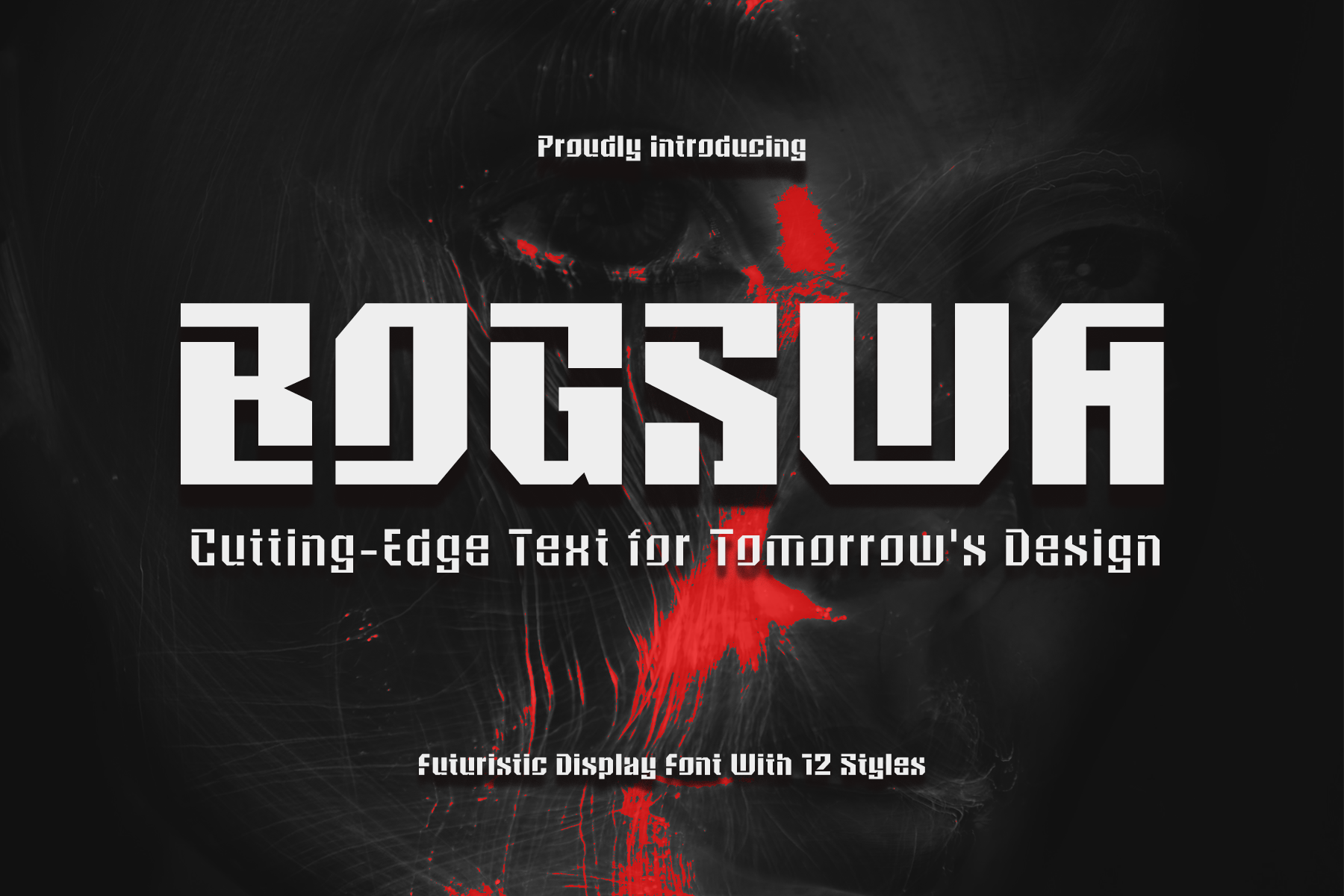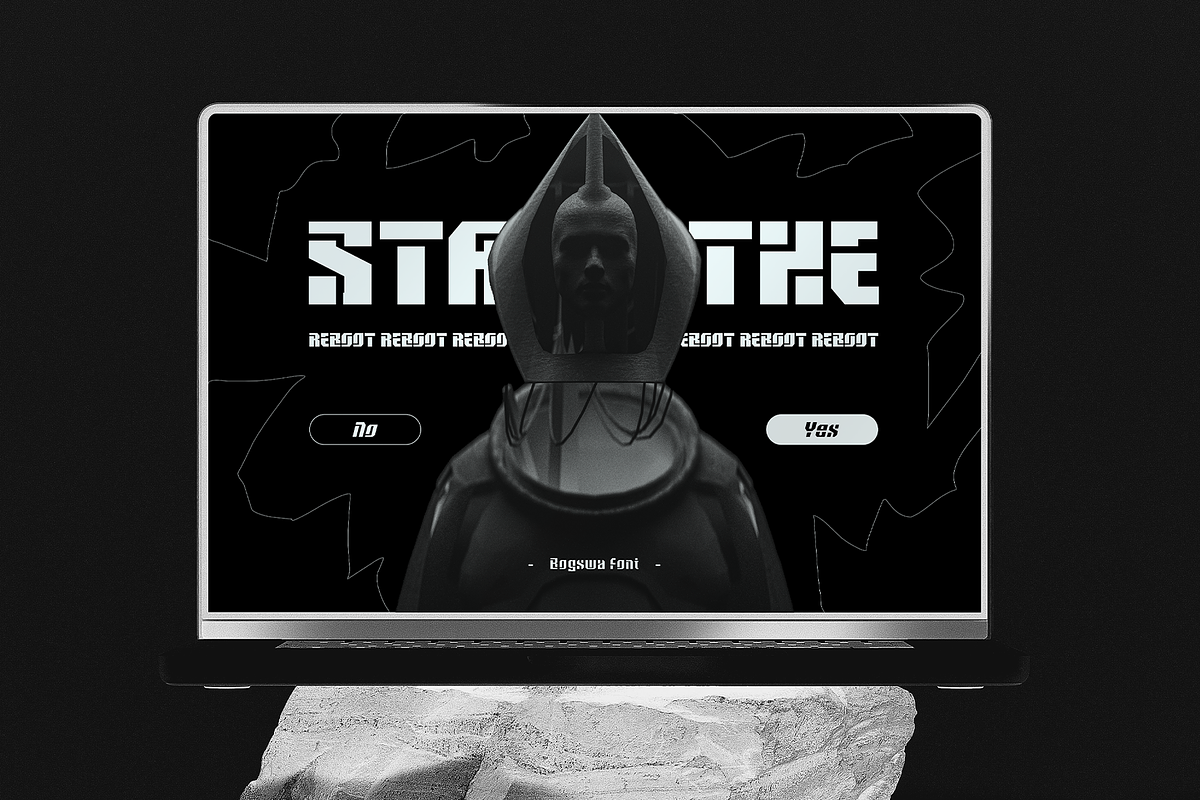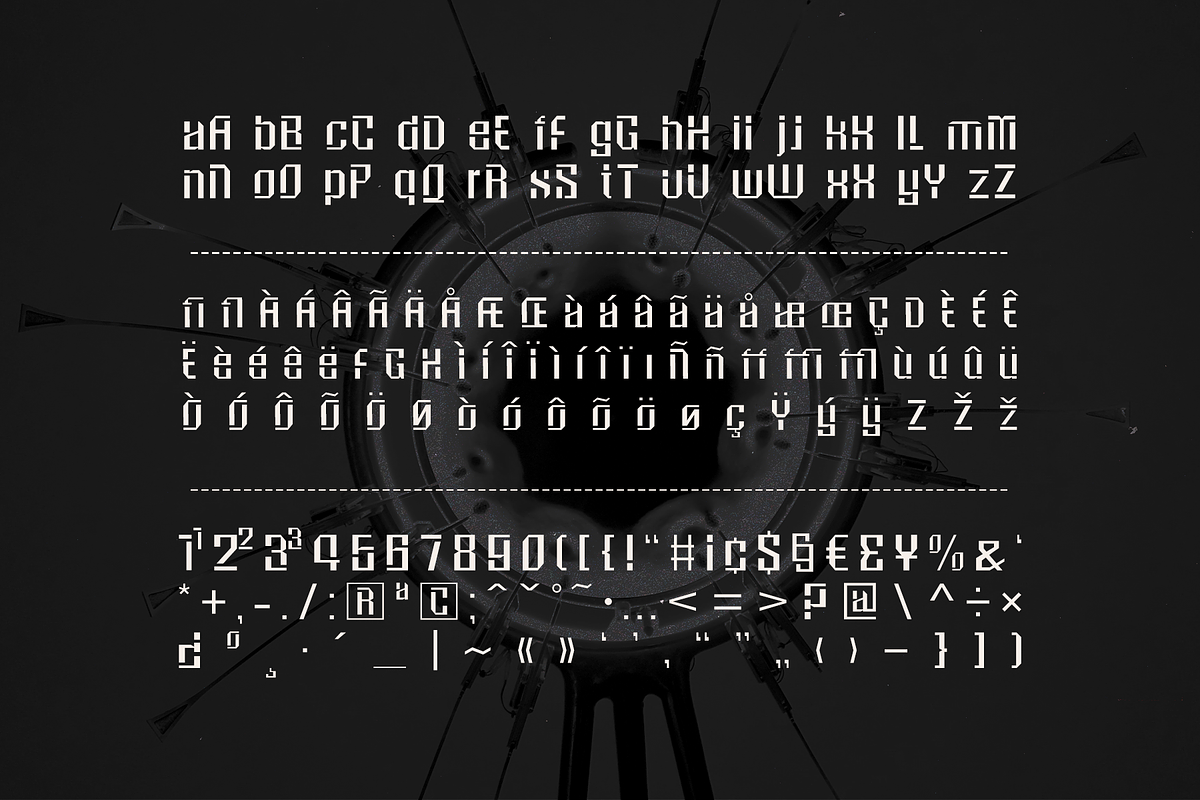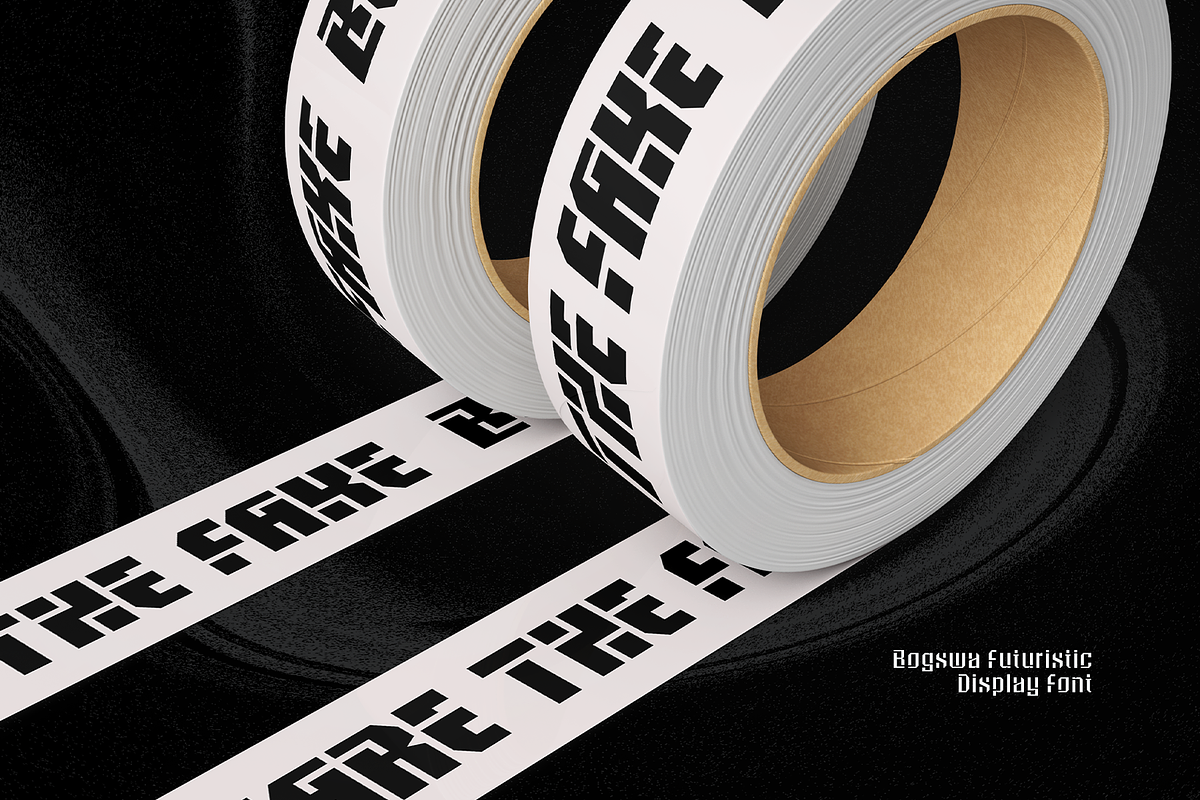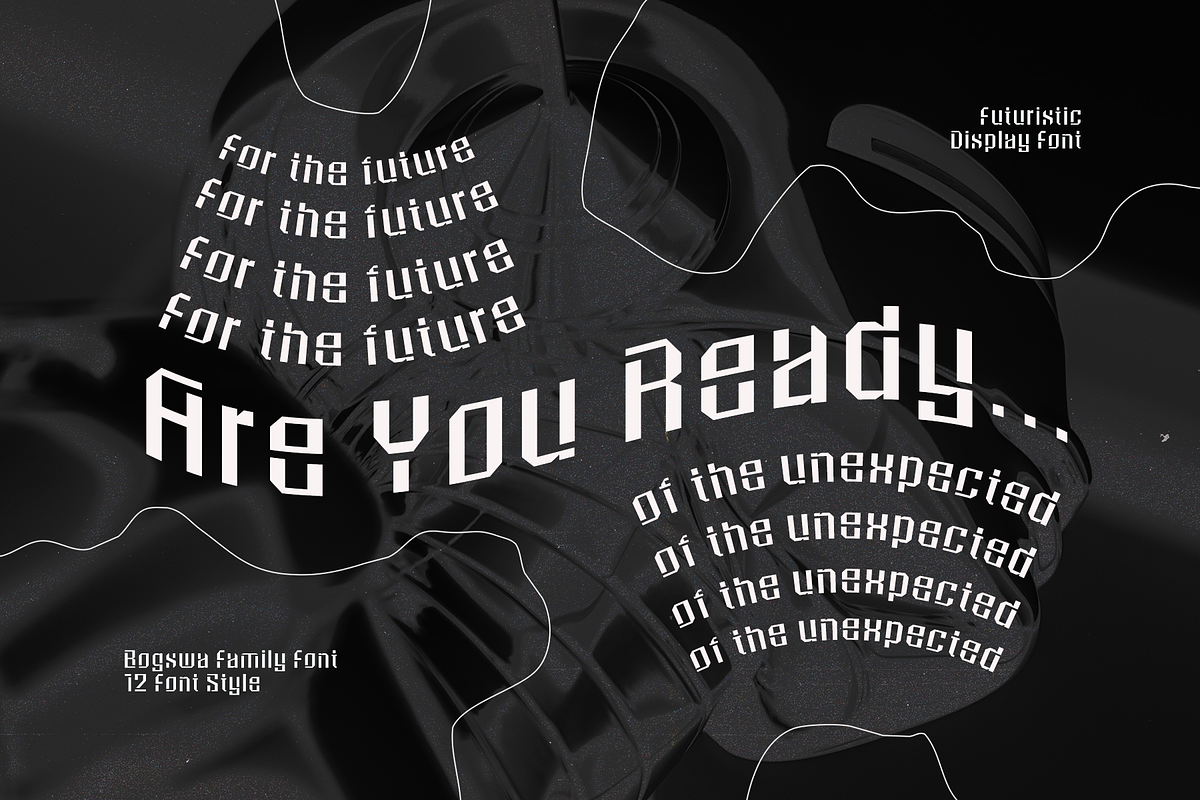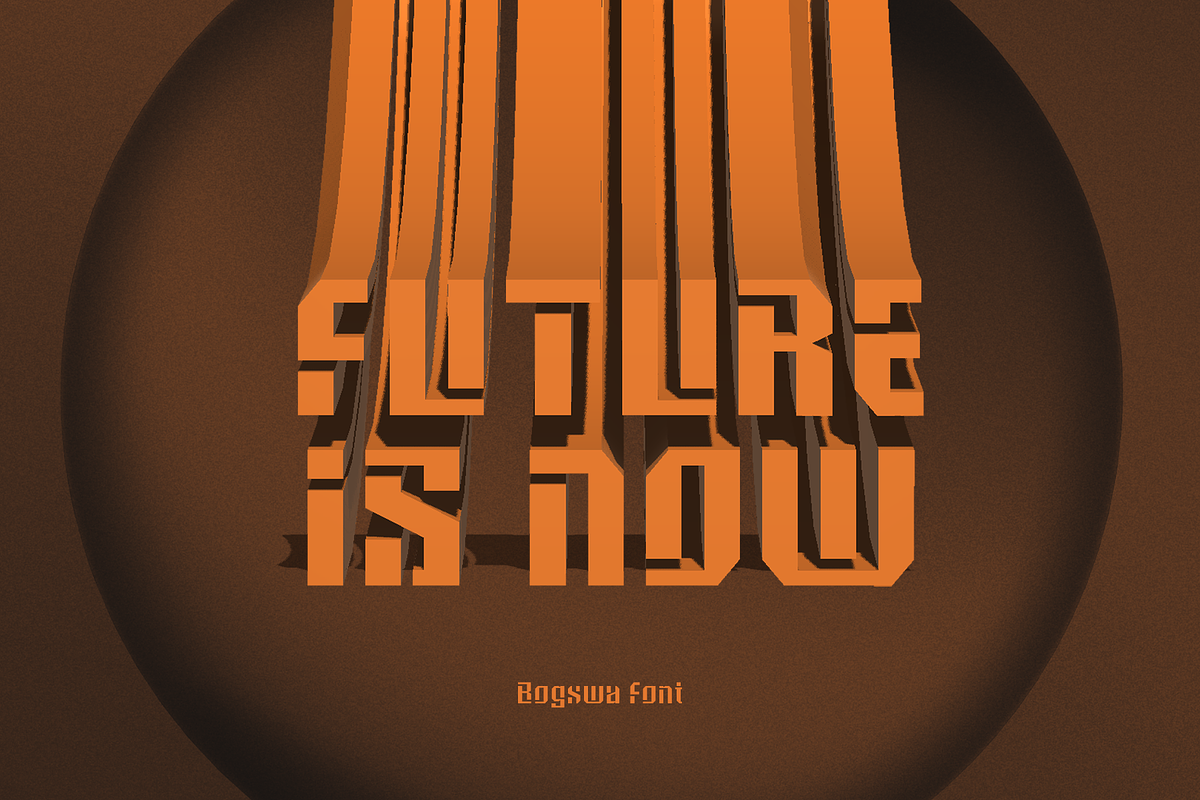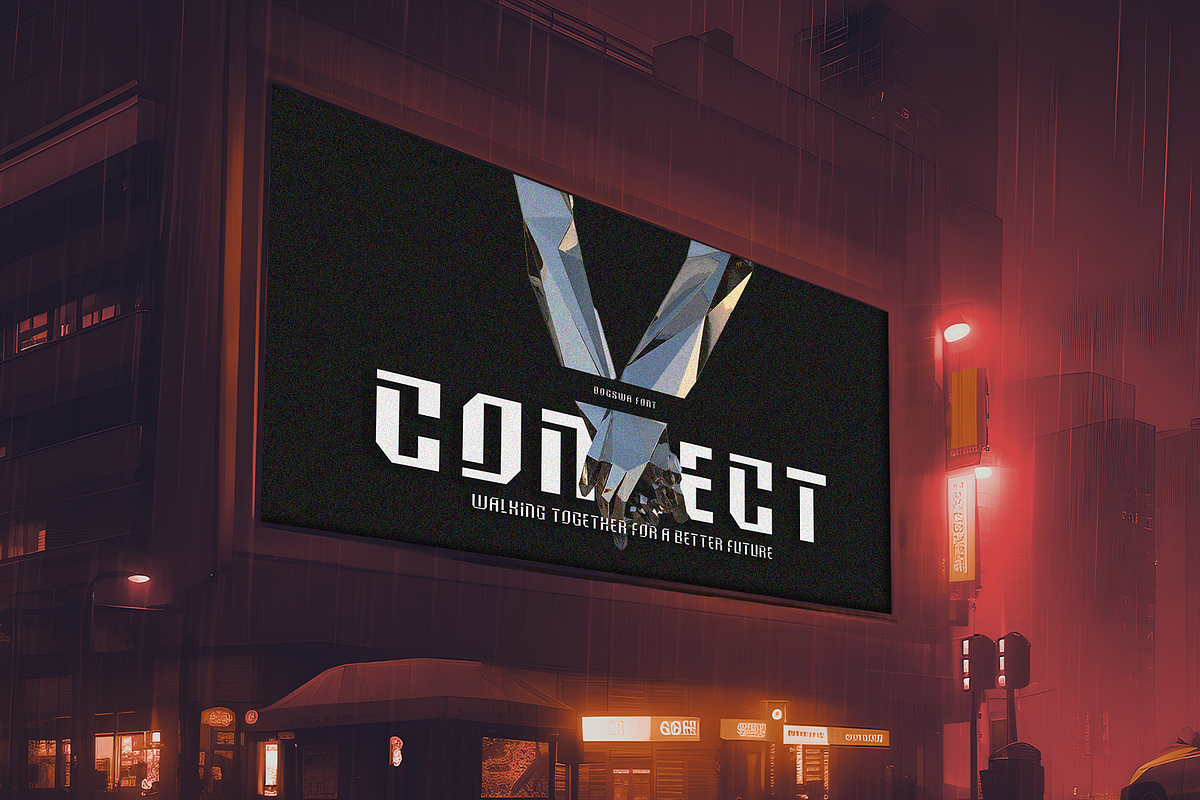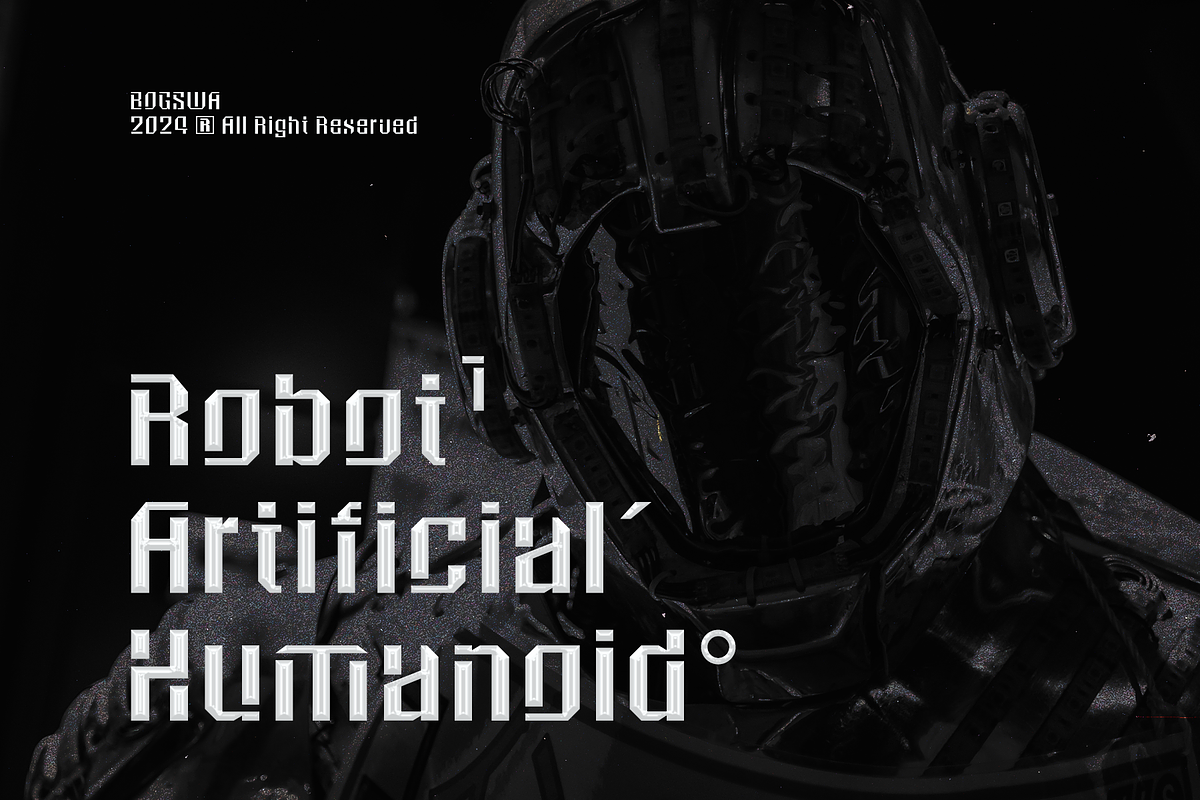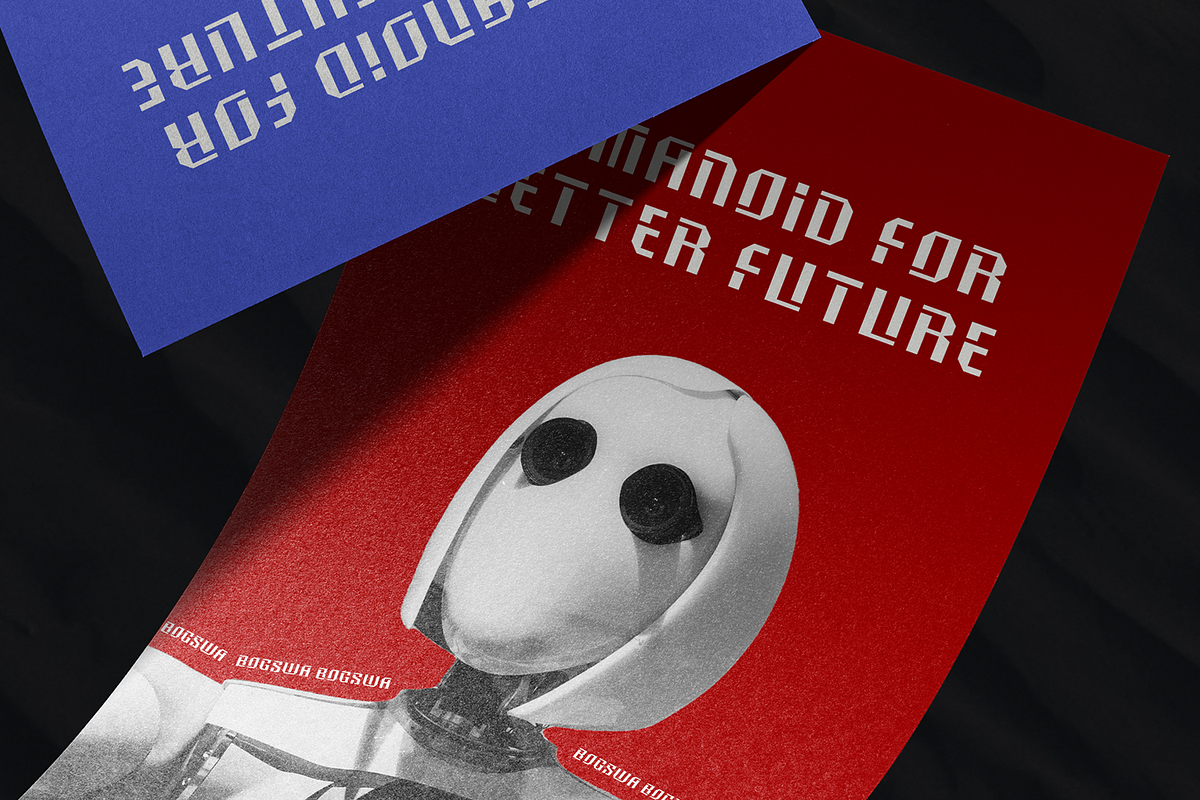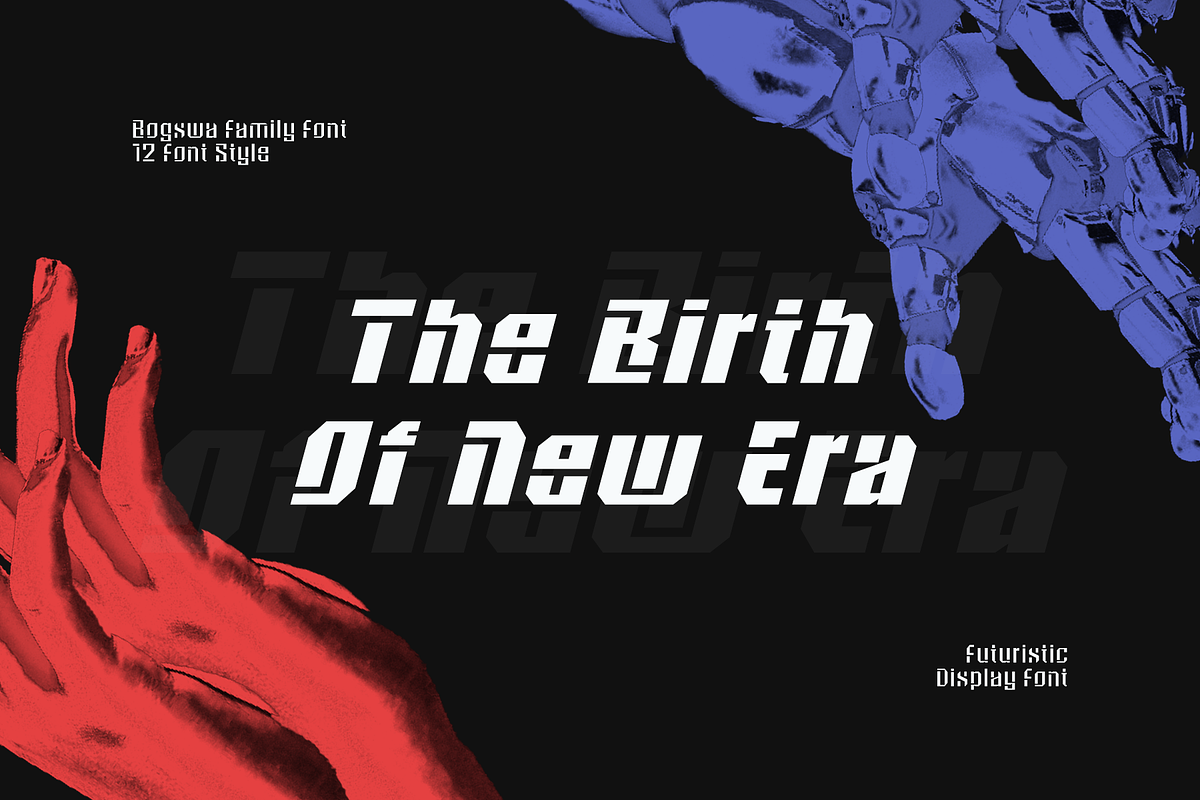
CF Bogswa - Futuristic Display Font
Bogswa is a cutting-edge geometric typeface that injects a dose of futuristic style into your designs. Featuring sharp angles, clean lines, and a bold stencil aesthetic, Bogswa propels your projects into the future. What make's Bogswa special is because of the Crisp angles and clean lines create a sense of modernity and technological advancement, The bold stencil style adds a touch of industrial edge and a unique visual texture, Customize your text and tailor it to your specific design needs with a staggering 12 different styles available.